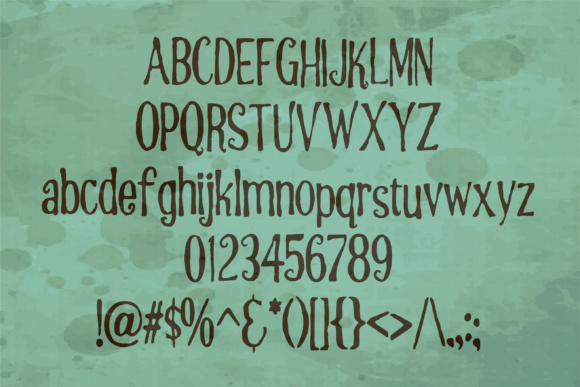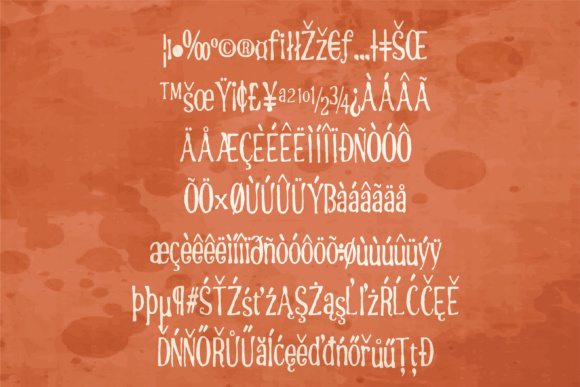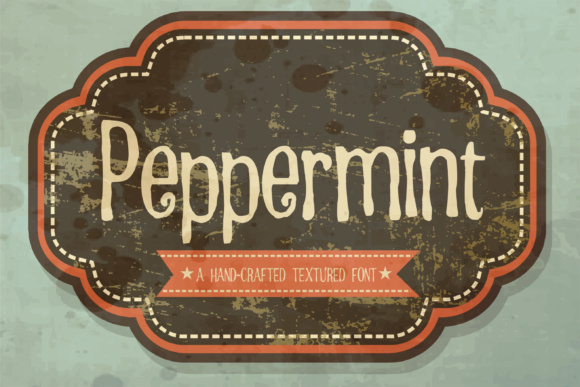
Freebie Wednesday: Peppermint Font
Peppermint Font is a fun textured hand-crafted font and is this weeks free font at Creative Fabrica. Don’t wait too long, the offer expires in 5 days!